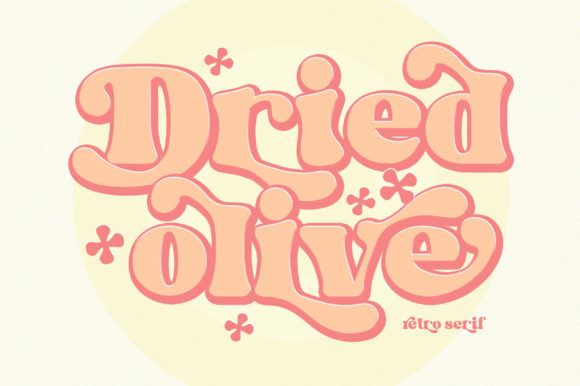
Dried Olive Font
Dried Olive is a chic and trendy display font. It is PUA encoded which means you can access all of the glyphs and swashes with ease! Add it confidently to your projects, and you will love the results.